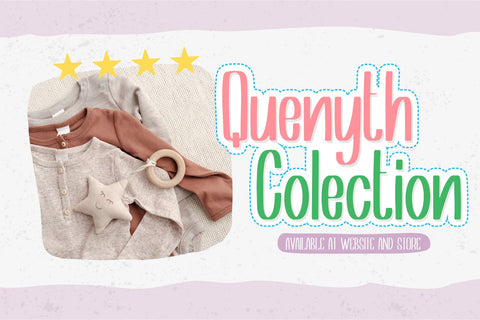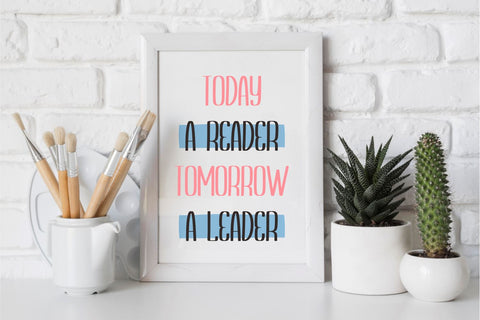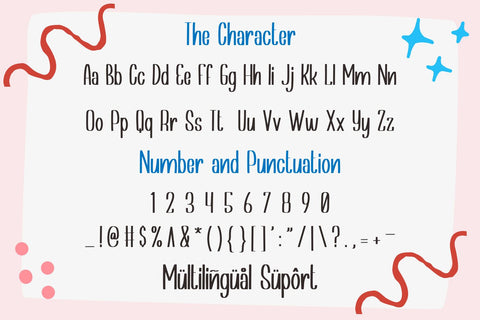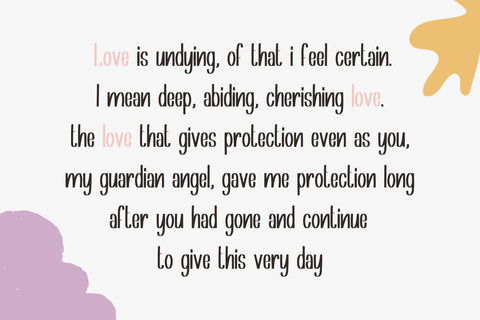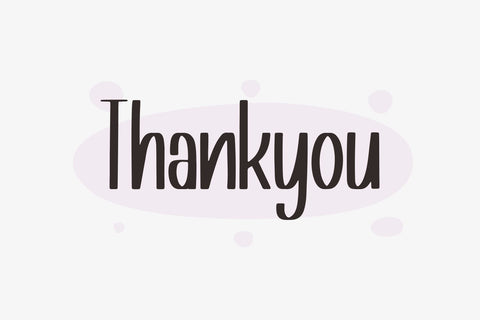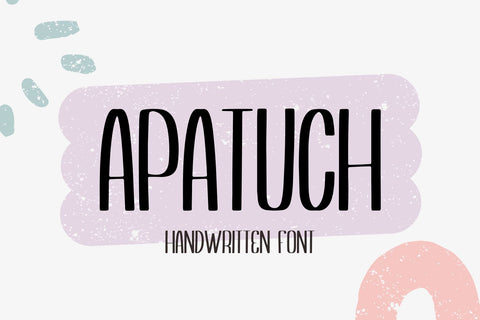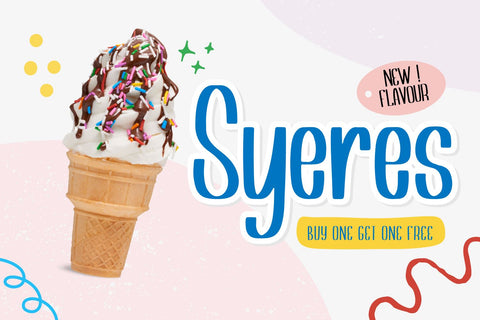
Apatuch
Introducing Apatuch Font by Forberas Club
Apatuch is a Modern Handwritten Font. Apatuch perfect for book cover, product packaging, branding project, megazine, social media, skate zine, band font, or just used to express words above the background. This font includes TTF and OTF, This font also multilingual support.